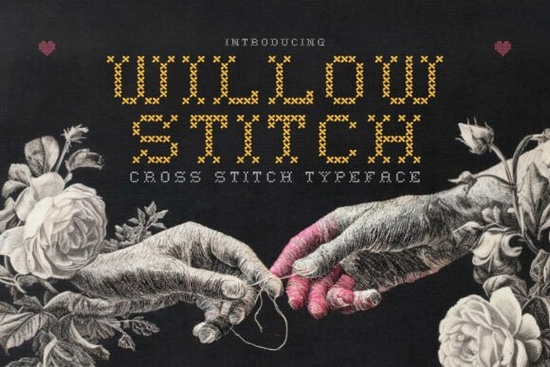
If you’ve been looking for a typeface that brings the cozy, nostalgic feel of embroidery straight into your digital projects, Willow Stitch Font could be the perfect match. This hand-stitched lettering style recreates the look of traditional cross-stitch with impressive detail, making it a favorite among crafters, Etsy sellers, and anyone who loves the charm of handmade textiles.
What makes this font feel like real stitching?
Unlike standard serif or sans-serif fonts, Willow Stitch is built to mimic actual thread on fabric. Each character has the tiny pixel-style crosses you’d see in counted cross-stitch patterns, giving your designs a textured, dimensional quality. The letters have slightly uneven edges and a soft rhythm that feels genuinely handmade, not mechanical. This is especially useful for craft room quotes, baby announcement prints, or anything that needs a warm, homespun vibe. Because Willow Stitch’s stitched look is so distinctive, it quickly becomes the focal point of any layout, whether you use it for a single initial or a full phrase.
What can you actually create with it?
The short answer: a lot. Crafters and print-on-demand sellers use Willow Stitch for:
- Personalized hoop art and embroidery-style wall decor
- Digital greeting cards, especially for holidays and new babies
- Farmhouse-style signage for kitchens and living spaces
- T-shirt and tote bag designs with a homespun twist
- Scrapbook titles and journal covers
- Etsy shop logos and product previews that signal “handmade”
Because the font comes in common formats like OTF and TTF, you can use it in Cricut Design Space, Silhouette Studio, Canva, Photoshop, and most word processors without any extra steps. This flexibility makes it a go-to for small business owners who want to add a crafty touch to their branding without drawing each letter by hand.
Is it beginner-friendly?
Absolutely. You don’t need advanced typography skills to get great results. The font installs like any other, and the letters already contain the stitched details, so you won’t have to layer or add effects to achieve the cross-stitch look. A quick tip: keep line spacing a little looser than usual to let the stitches breathe, especially on busy backgrounds. If you’re new to decorative fonts, starting with something like Willow Stitch is a gentle introduction because it reads clearly even at small sizes, though it truly shines in headlines or large-format uses.
How does it compare to other decorative fonts?
If you love the homespun feel but sometimes need a different mood, it’s helpful to have a few alternative fonts on hand. For playful classroom or kids’ projects, a school doodle stripe font adds a chalky, hand-drawn energy that pairs nicely with stitched titles. When you want something with a gentle seaside breeze, Sandy Wink Sea offers a light, whimsical script that contrasts well with the solid texture of Willow Stitch. Crafters working on Western-themed designs might reach for a rope cowgirl font to get that rugged ranch look. And if you ever need a spikier, edgier vibe maybe for a Halloween project or a teen’s bedroom sign an Alpha Spike font brings a completely different personality while still keeping things decorative. Using one of these alongside Willow Stitch can add variety to your product line or craft album without making the overall style feel random.
What sizes and surfaces work best?
Because the stitched detail includes small cross marks, you’ll want to test the font at your intended size before finalizing. At 18 points or larger, the embroidery effect is crisp and obvious. When used very small like on a business card it can still be readable, but the texture might get lost. For physical crafts, this font cuts well on vinyl if you weed carefully around the tiny cross patterns. On textured surfaces like canvas or burlap, the design looks even more authentic, almost like it’s been embroidered directly onto the material.
How can I make my designs look even more “stitched”?
A few easy tricks: use a color palette inspired by embroidery floss muted reds, dusty blues, soft greens. Add a subtle fabric background or a faint hoop outline behind your text. You can also duplicate the text layer, offset it very slightly, and give the bottom layer a darker “shadow” to simulate the thickness of thread. These little adjustments help the font feel even more physical, turning a flat digital design into something that people want to reach out and touch.
Ready to try it?
Start with a simple project: type up a short quote, choose a warm thread-like color, and put it on a mockup of a pillow or a wood sign. See how quickly the piece transforms into something that feels handmade. From there, you can expand into full product lines, wedding invitations, or personalized gifts. The cross-stitch trend isn’t going anywhere, and having a solid, well-constructed font like Willow Stitch in your toolkit saves hours of manual design work while keeping that precious homespun character intact.
Quick checklist for your first Willow Stitch project:
- Pick a short, meaningful phrase (under 10 words).
- Set the color to a vintage floss tone like DMC 321 or 930.
- Add a subtle canvas or linen background texture.
- Experiment with letter spacing; try a 5–10% increase.
- Test at the final output size, especially for print-on-demand items.